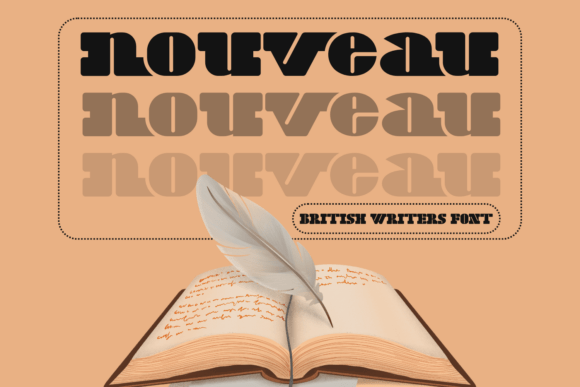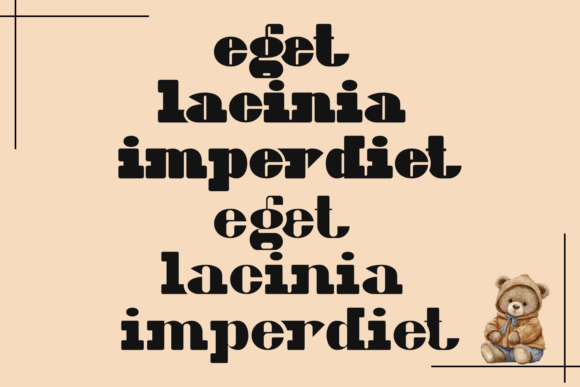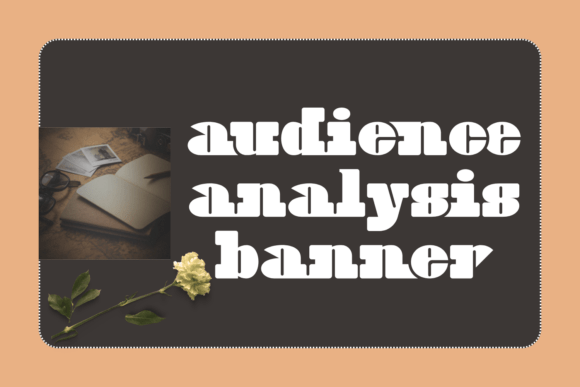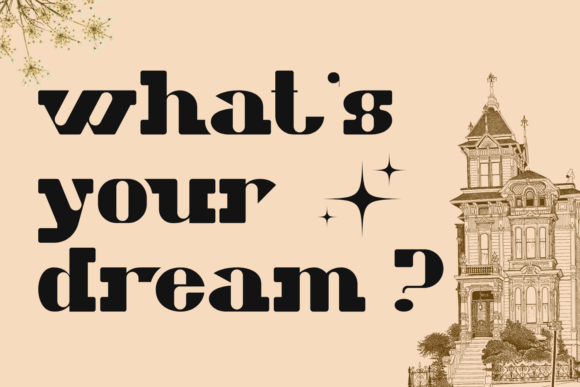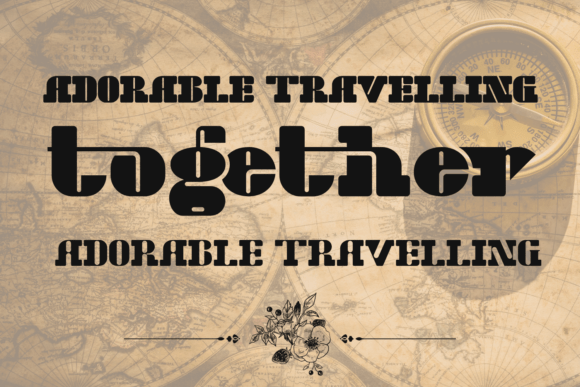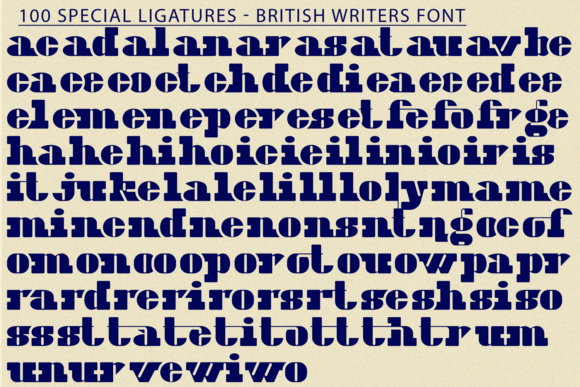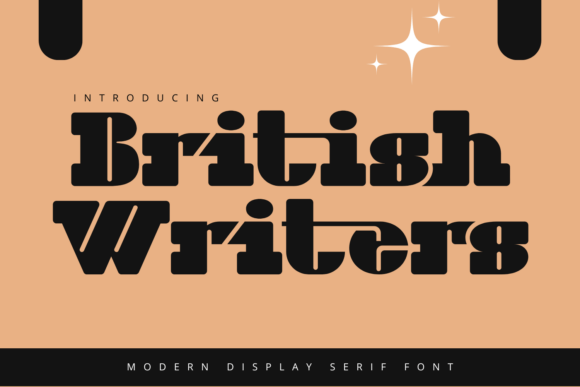
Introducing British Writers Font: A Retro Slab Serif Font with a Modern Twist
Are you a designer or crafter looking for a font that exudes a strong, masculine, and captivating vibe? Look no further than British Writers Font, a retro Slab Serif font that combines the best of classic design with modern flair. In this article, we’ll dive into the features and benefits of British Writers Font, and explore how it can elevate your creative projects.
A Retro-Inspired Font with a Modern Edge
British Writers Font is a Slab Serif font that draws inspiration from the classic typography of the past. Its distinct Slab Serif characters give it a bold, rugged feel that’s perfect for making a statement. But what sets British Writers Font apart is its modern twist. The font’s designers have carefully crafted each letterform to create a delightful and unique harmony between retro and modern elements.
One of the key features of British Writers Font is its well-balanced letter thickness. This ensures that your message is conveyed clearly and effectively, whether you’re using it for a logo, a poster, or a label. The font’s exceptional clarity also makes it perfect for use across all media, from digital platforms to print materials.
Perfect for a Wide Range of Creative Projects
British Writers Font is an incredibly versatile font that’s suitable for a wide range of creative projects. Whether you’re a crafter looking to add a personal touch to your products, or a designer working on a client’s branding campaign, this font has got you covered.
Some ideas for using British Writers Font include:
• Crafts: Add a touch of personality to your handmade crafts, such as knitted items, jewelry, or ceramics.
• Labels: Create eye-catching labels for your products, whether you’re selling food, cosmetics, or home goods.
• Quotes: Use British Writers Font to add a touch of elegance and sophistication to your inspirational quotes.
• SVG files: This font is perfect for use with SVG files, making it ideal for cutting machines and other digital craft applications.
• Decorations: Add a personal touch to your home decor with signs, wall art, and other decorative items featuring British Writers Font.
• Logotypes: Use British Writers Font to create a unique and memorable logo for your business or brand.
• Book covers: This font is perfect for use on book covers, adding a touch of classic sophistication to your design.
• T-shirts: Create eye-catching t-shirt designs with British Writers Font.
• Web: Use British Writers Font on your website to add a touch of personality and style.
• Posters: Create striking posters with British Writers Font, perfect for advertising events, promotions, or causes.
• Stickers: Use British Writers Font to create custom stickers for your products, packaging, or marketing materials.
• Wall art: Add a touch of personality to your walls with custom wall art featuring British Writers Font.
Built with OpenType Features for Maximum Flexibility
British Writers Font was built with OpenType features, making it incredibly flexible and versatile. The font includes:
• 100 ligatures: Add a touch of elegance and sophistication to your text with these special character combinations.
• Alternate characters: Switch between different character forms to add visual interest to your text.
• Numbers: Use the font’s built-in numbers to add a touch of consistency to your design.
• Punctuation: The font includes a range of punctuation marks to help you create professional-looking text.
• Language support: British Writers Font supports a wide range of languages, making it perfect for use in multilingual contexts.
Font Name British Writers Font
British Writers Font is a unique and versatile font that’s perfect for designers and crafters looking to add a touch of personality to their creative projects. With its retro Slab Serif design, modern twist, and OpenType features, this font is sure to elevate your designs and help you stand out from the crowd. Whether you’re working on a logo, a poster, a label, or any other creative project, British Writers Font is an excellent choice.